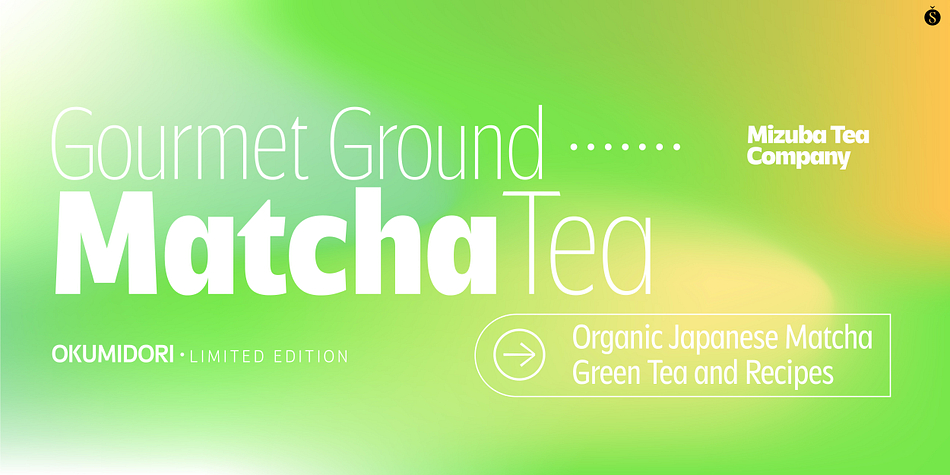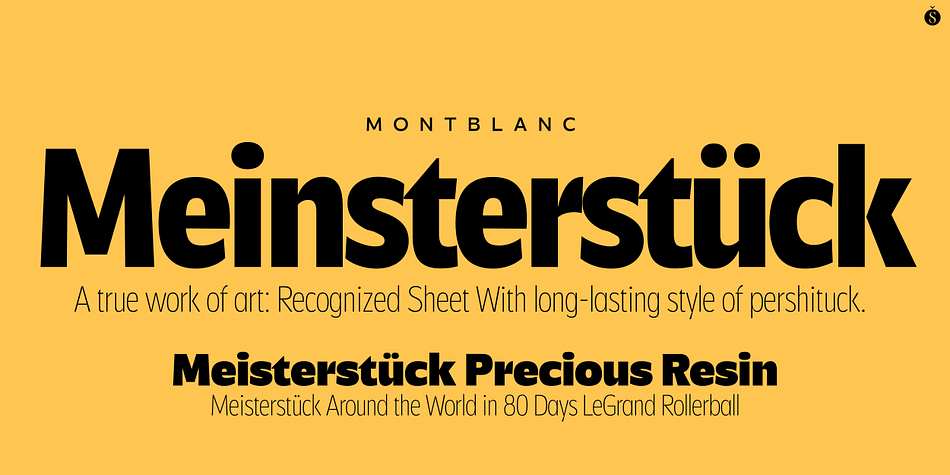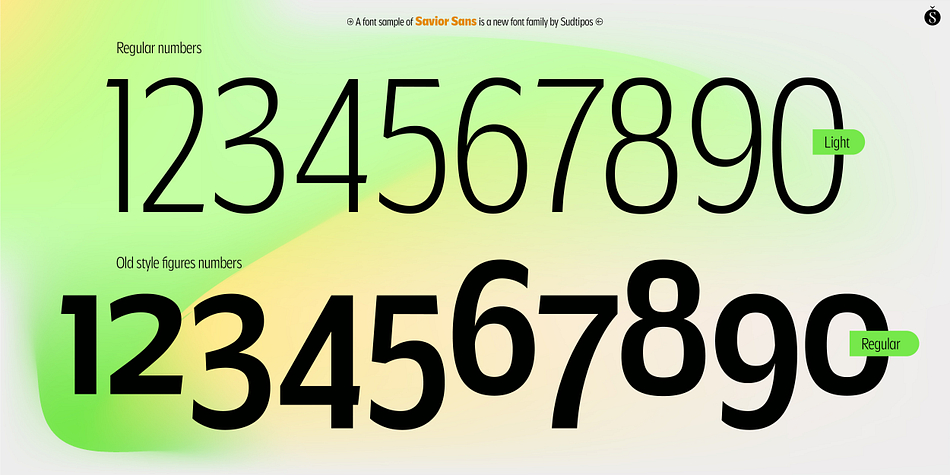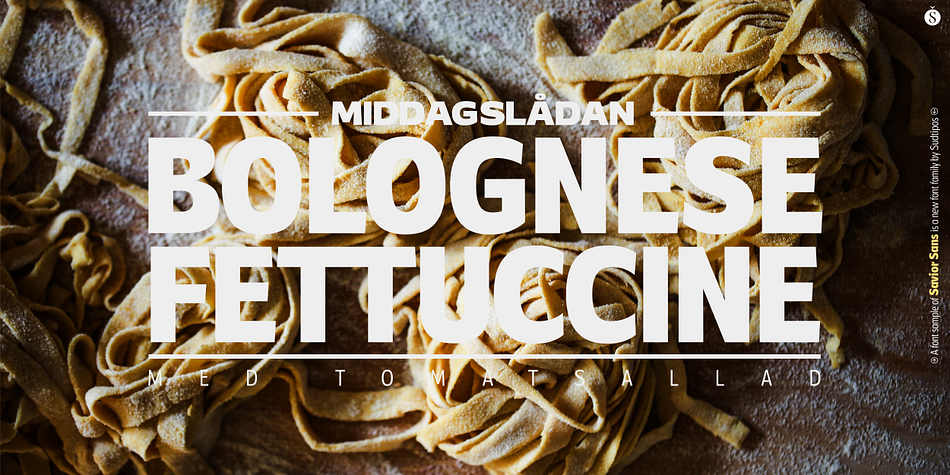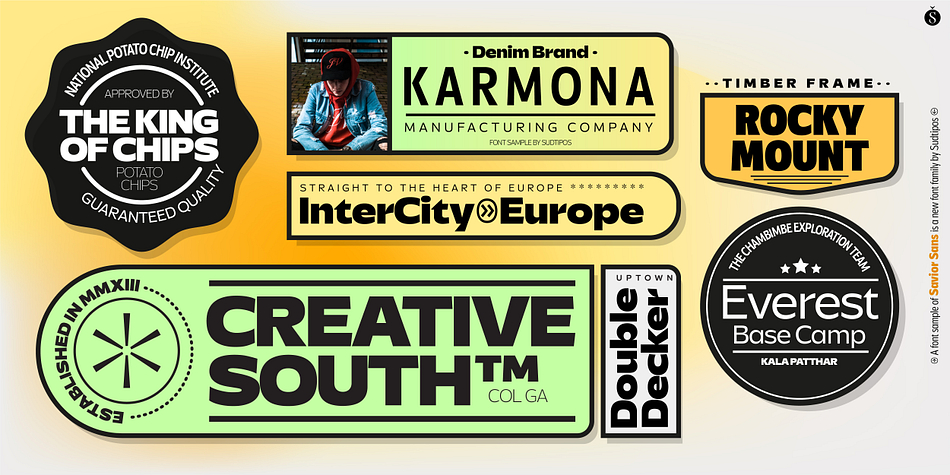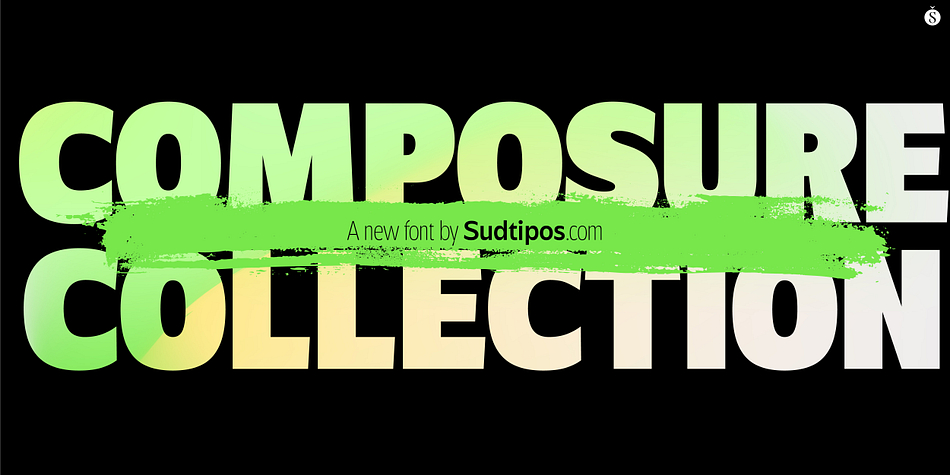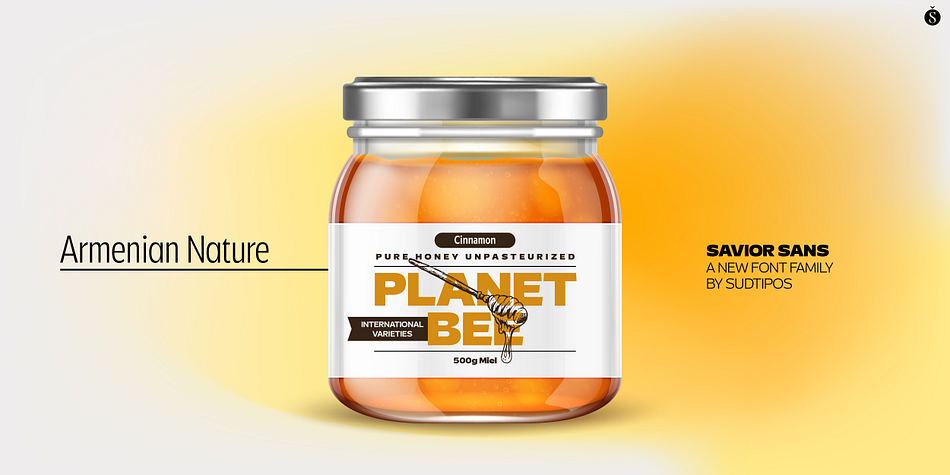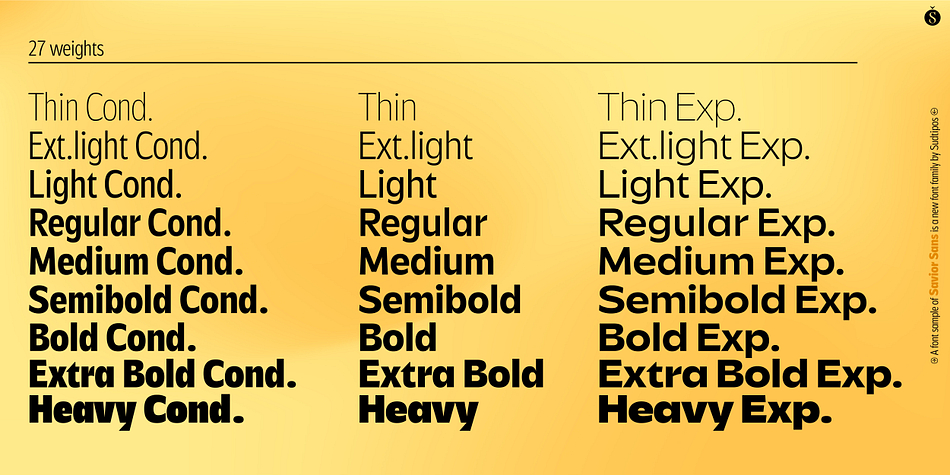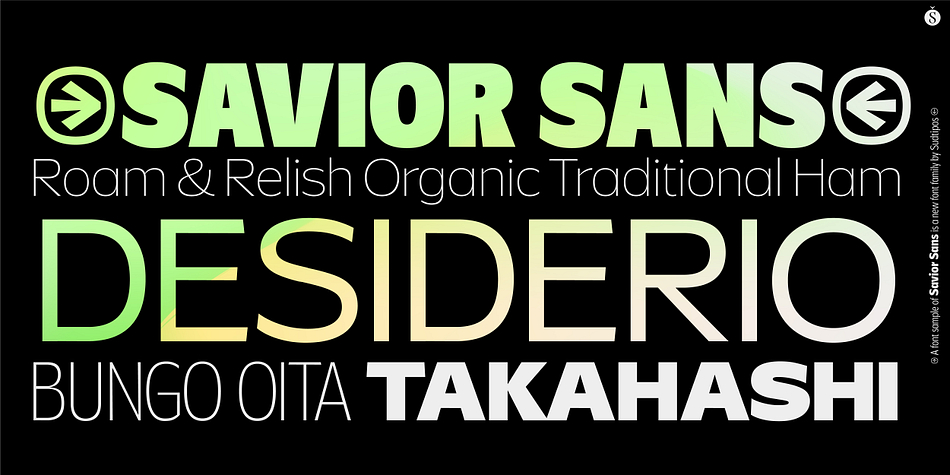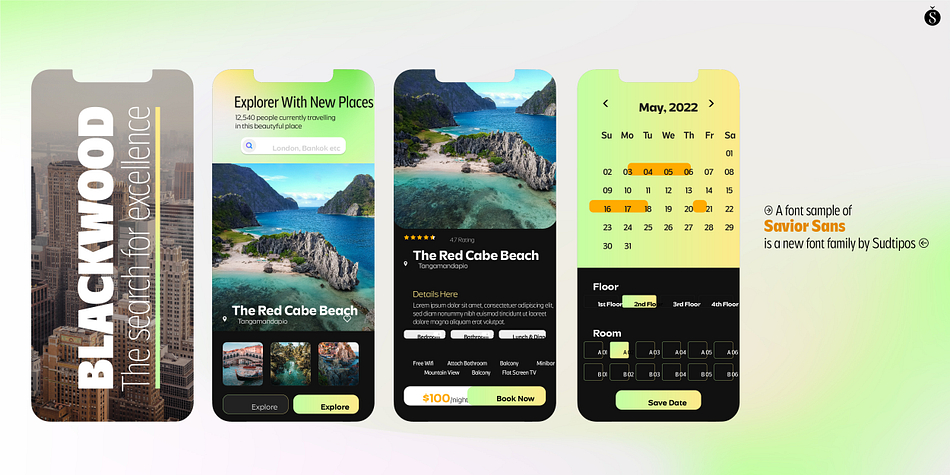
Designed by Andrés Ramírez, Savior Sans is a sans serif font family. This typeface has twenty-eight styles and was published by Sudtipos.
Savior Sans is the third collaboration between Sudtipos and Vástago, this is a 9 weight typeface in 3 different widths, condensed, regular and expanded. Its simple design with open shapes offers a different texture that works in different uses, such as web design, packaging or branding. Savior Sans offers a contemporary look at traditional sans fonts, maintaining the identity in each of its weights. In its variable version, it allows multiple options when designing, adapting to different composition solutions.